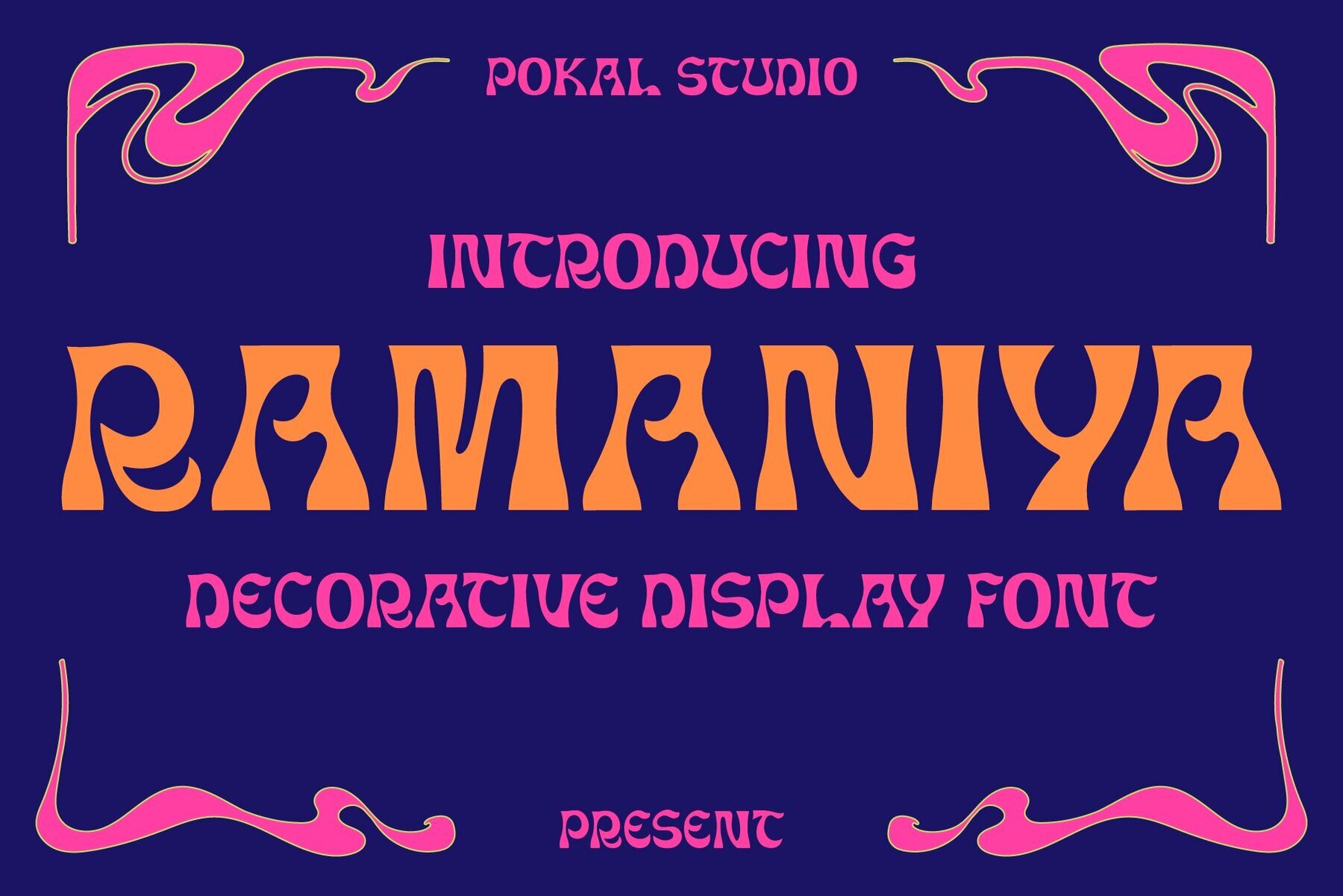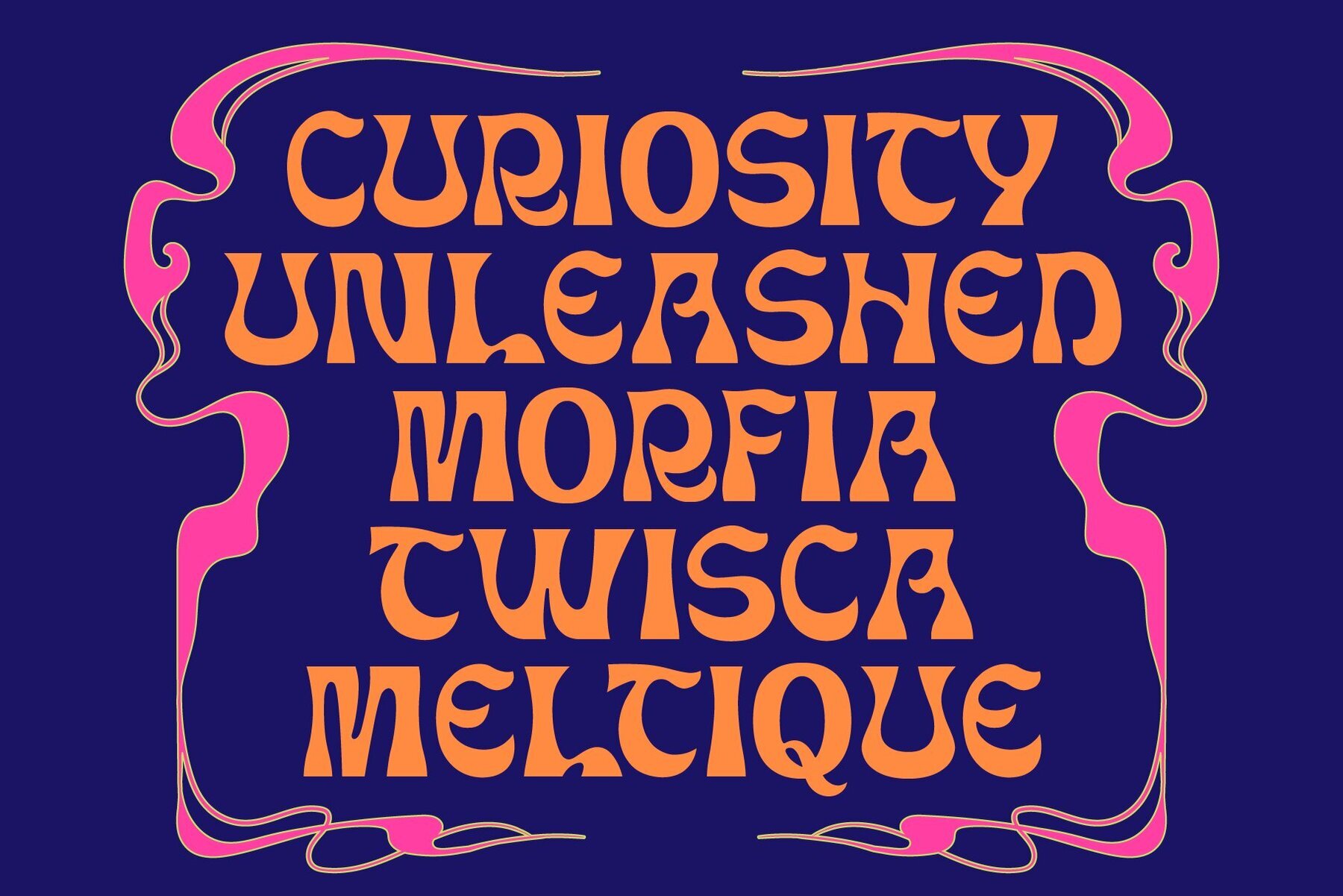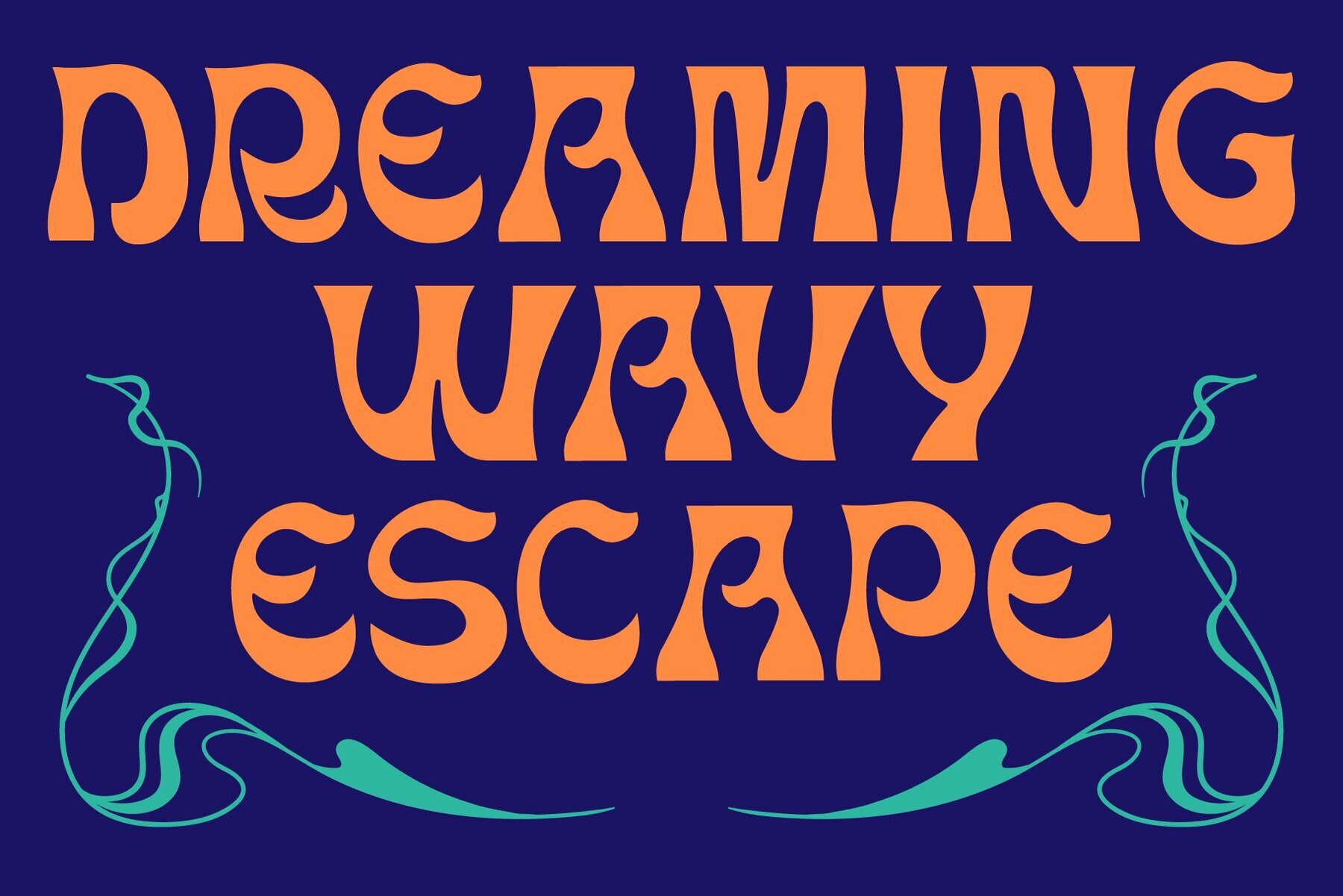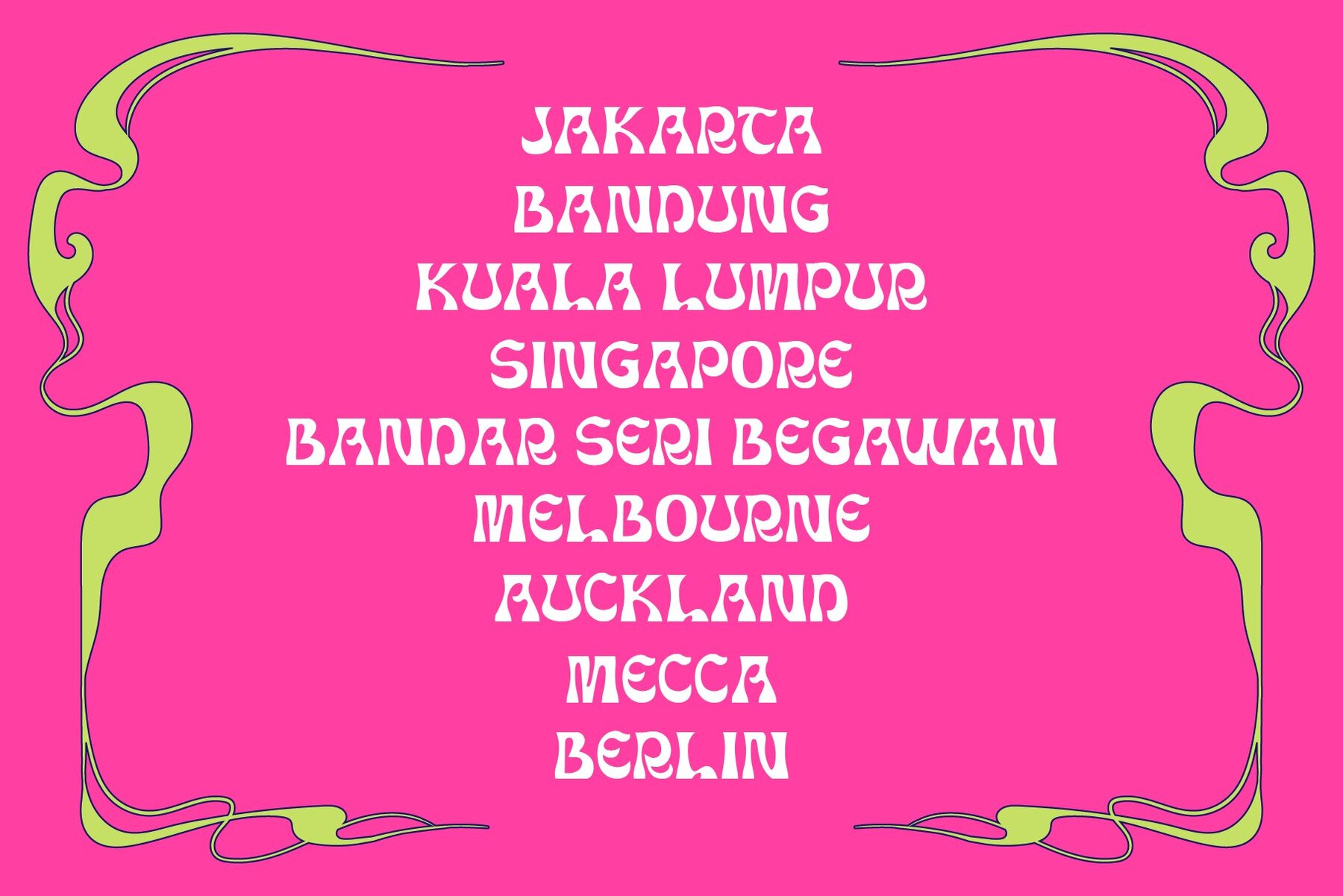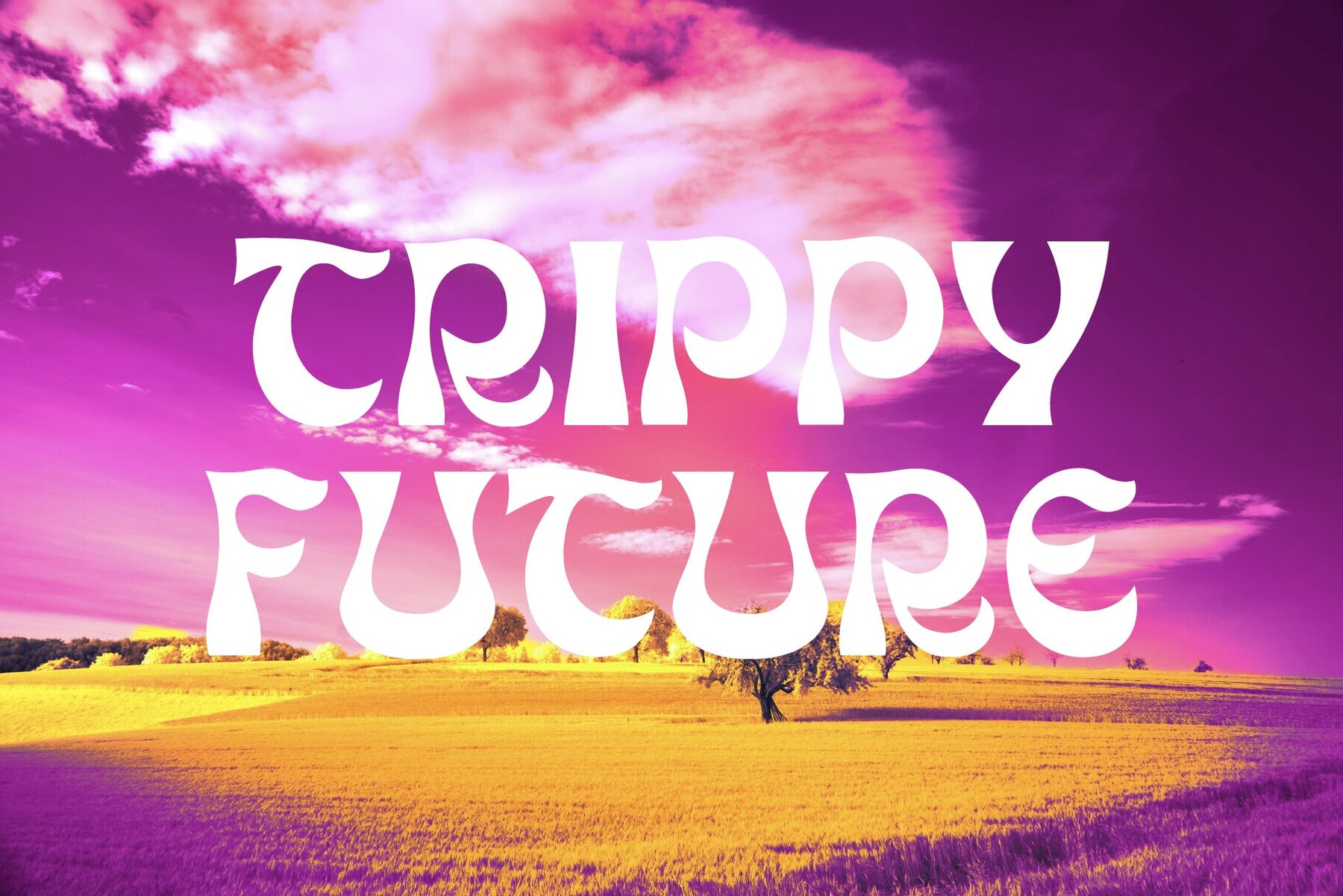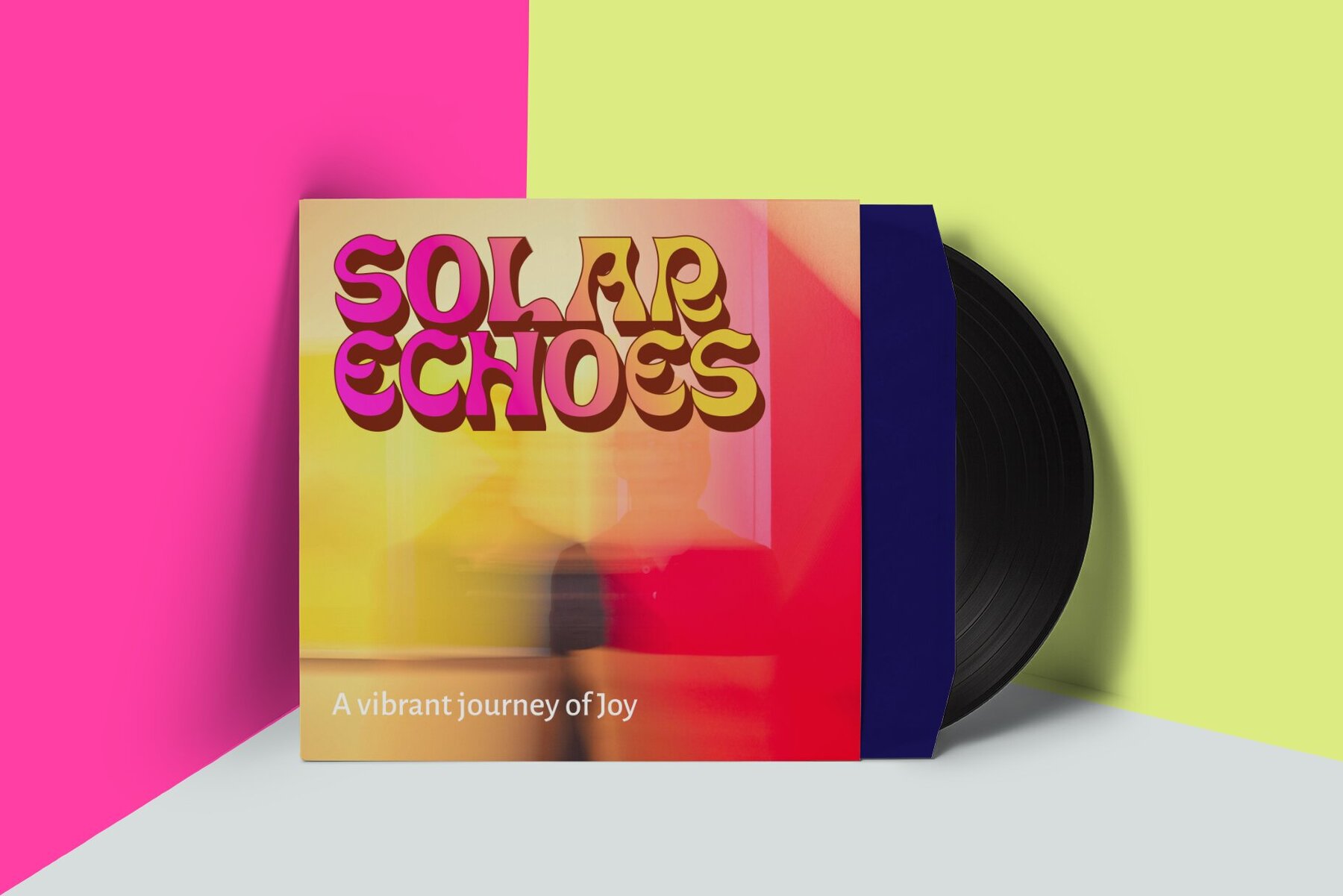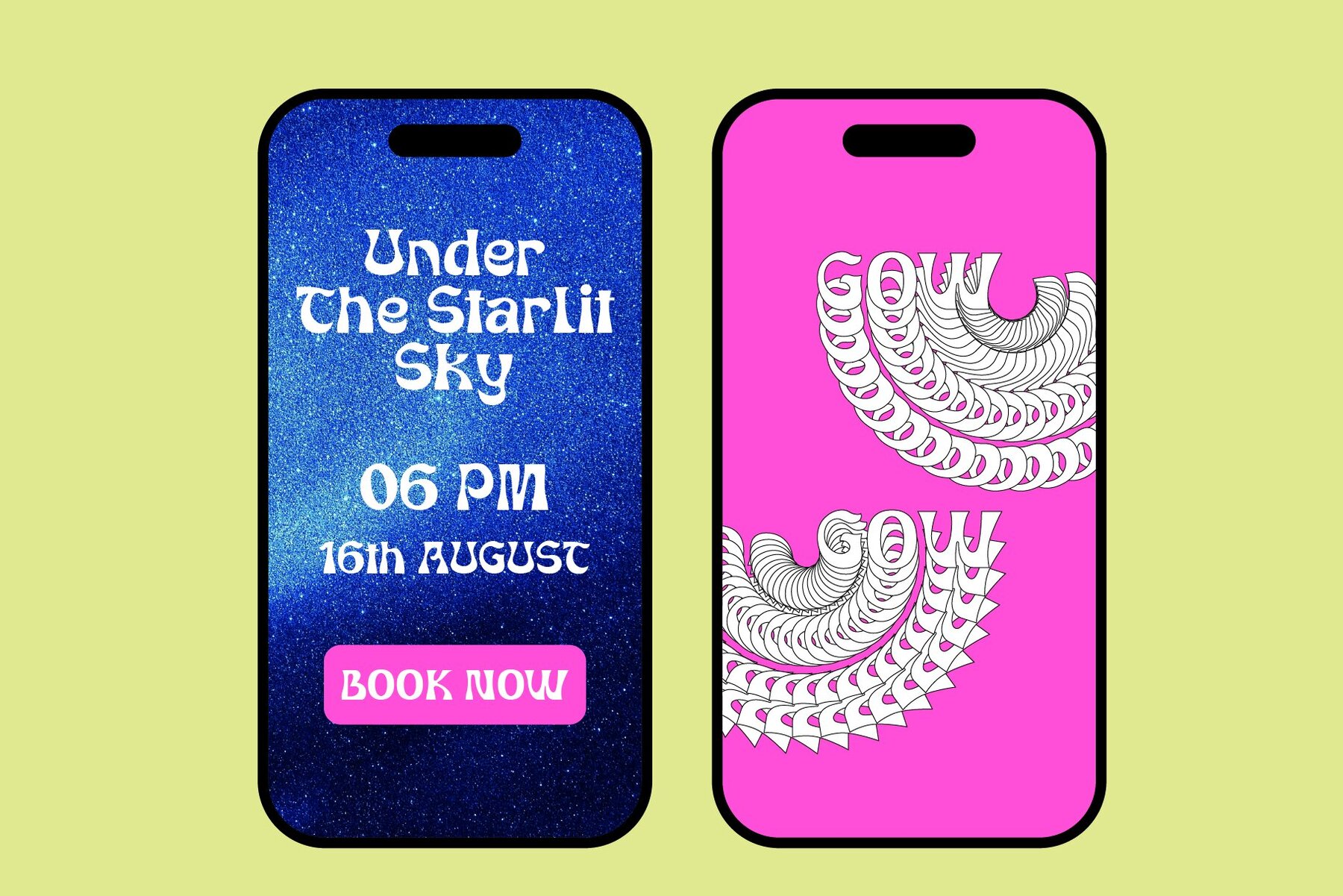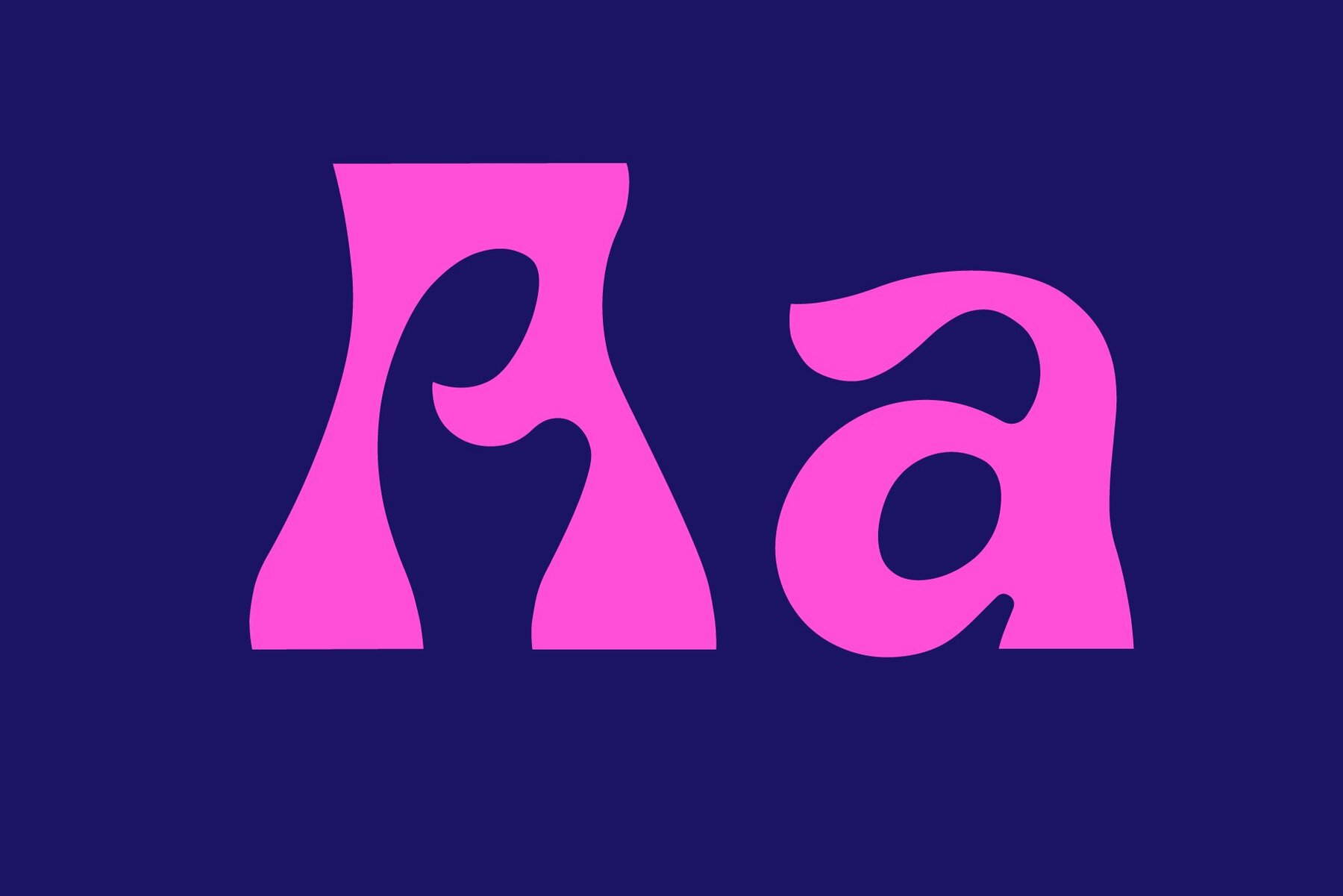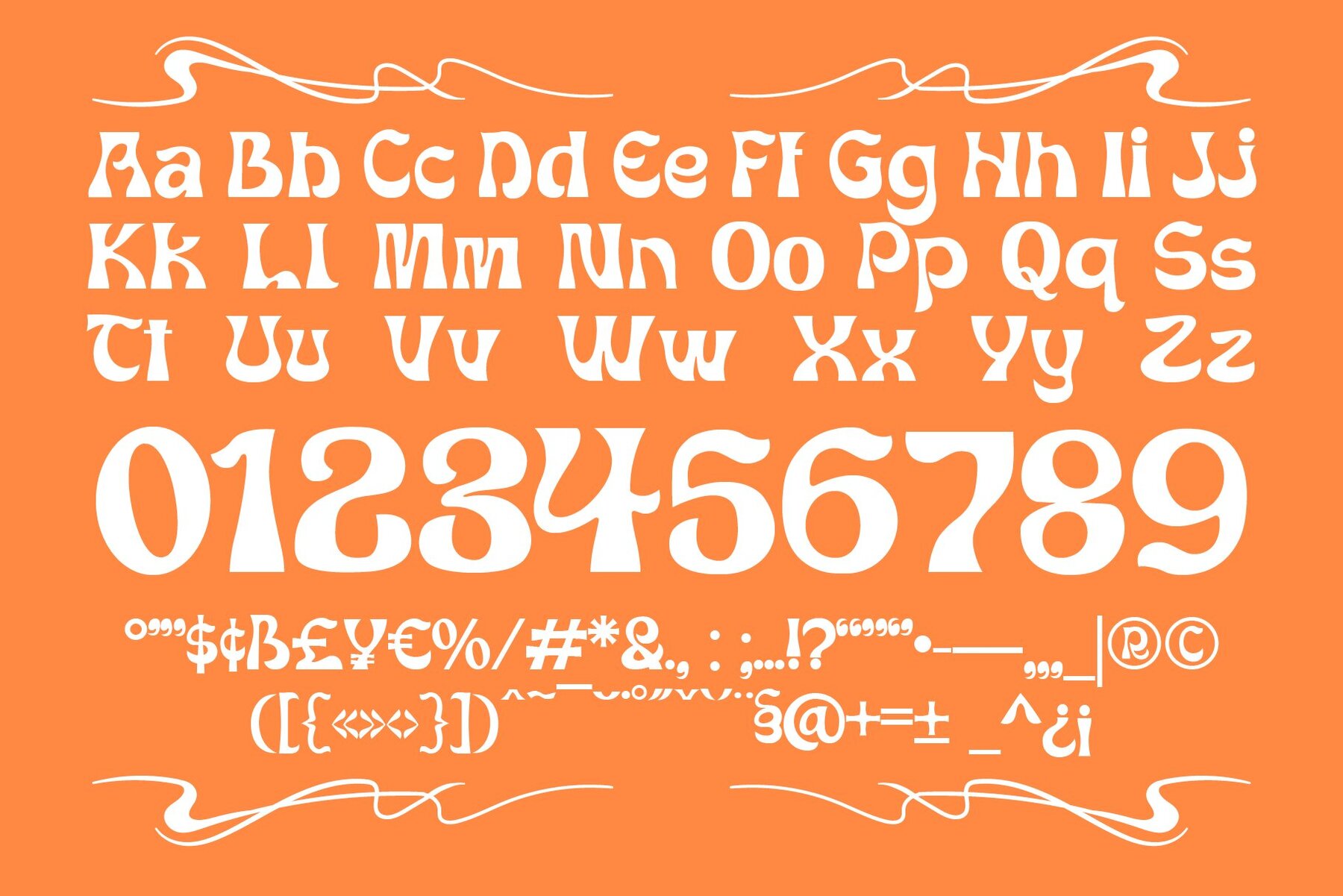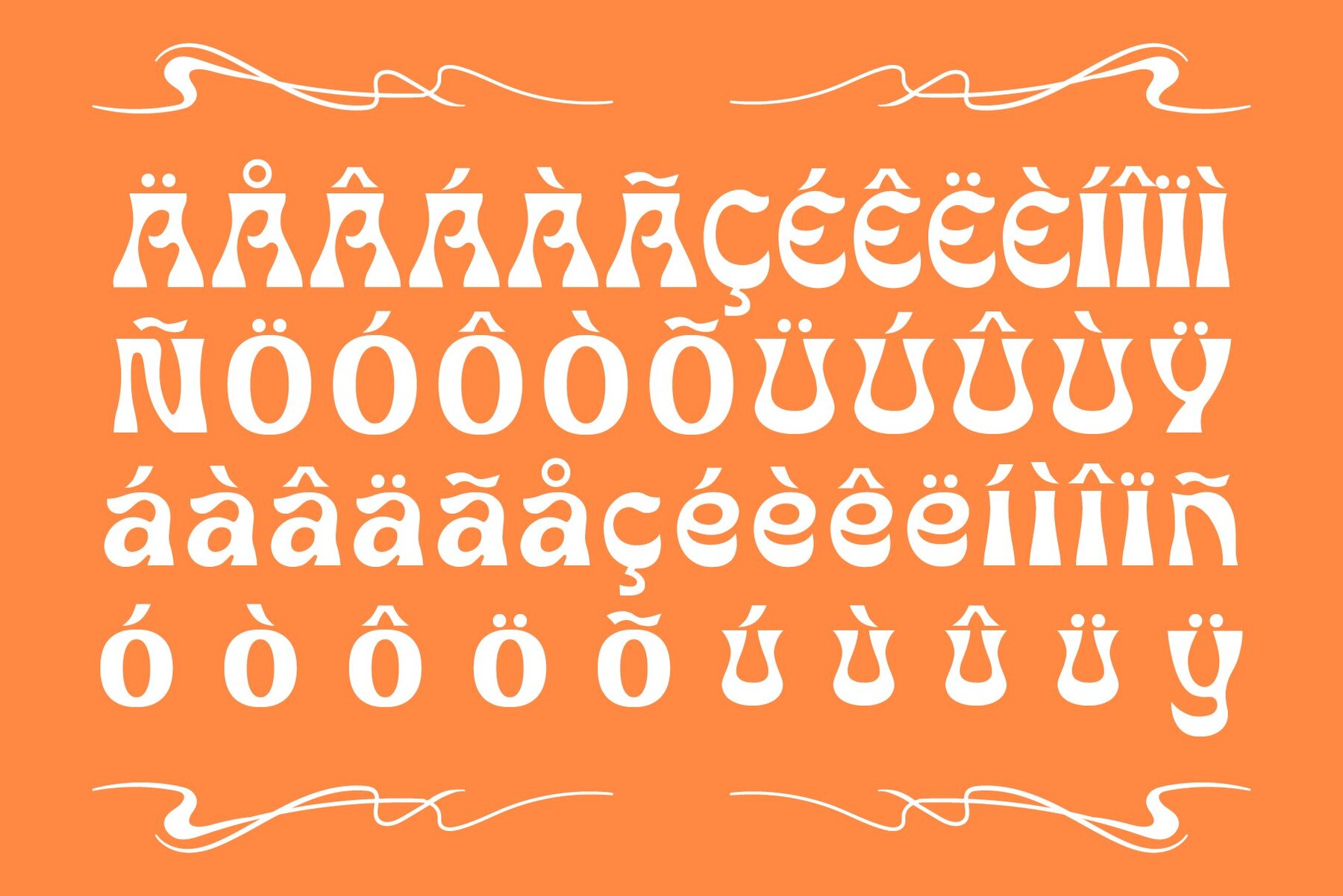
Ramaniya Font
PS Ramaniya
Step into a mesmerizing world with Ramaniya, a decorative font that effortlessly blends Art Nouveau elegance with a retro psychedelic vibe. Perfect for bold poster layouts and eye-catching headlines, Ramaniya's flowing, organic curves capture the essence of the 60s and 70s, enhanced by refined ornamental details. It's an ideal choice for creating striking festival posters, album covers, and vintage-inspired branding that demand visual impact and timeless charm. Let Ramaniya transport your designs on a captivating journey, where psychedelic influence meets vintage grace, and every headline becomes a visual journey.Ramaniya: Embrace the Psychedelic Elegance